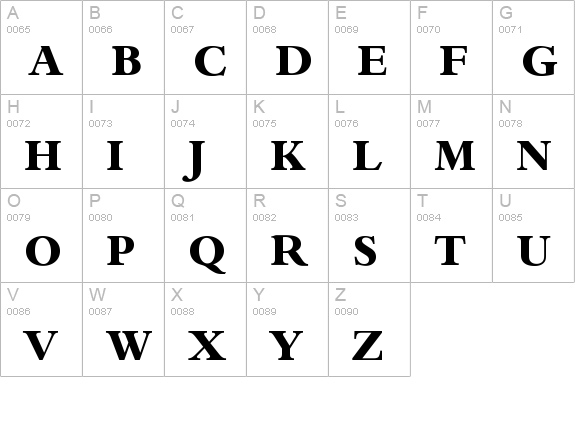
Bamberg-Bold Font Details
Bamberg-Bold is a strong, high-contrast variant in the Bamberg typeface family \xE2\x80\x94 well suited to headlines, attention-grabbing titles, and strong calls-to-action.
Bamberg-Bold is a modern and stylish font that exudes elegance and sophistication. With its strong and bold lettering, this font is perfect for making a statement in your design projects. The clean lines and sharp edges of Bamberg-Bold make it versatile and suitable for a wide range of applications, from branding to editorial design. What's even better is that Bamberg-Bold is available for free download at FontsMarket.com. So whether you're a designer looking to add a touch of class to your creations or a business owner in need of a standout font for your branding, Bamberg-Bold has got you covered. Don't miss out on this amazing opportunity to enhance your projects with this beautiful and striking font. Download Bamberg-Bold today and make your designs truly unforgettable.